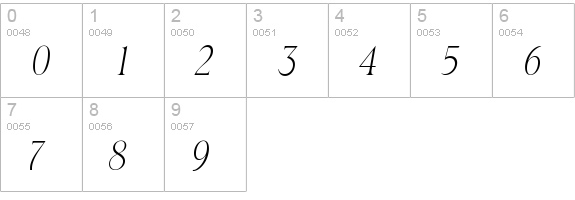
Toledo-XlightIta font is an elegant and sophisticated typeface that exudes a sense of modernity and grace. With its slender and delicate letterforms, it adds a touch of sophistication to any design project. The Toledo-XlightIta font is perfect for creating captivating headlines, stylish logos, and refined branding materials. This font features a unique blend of thin strokes and sharp angles, creating a harmonious balance between elegance and contemporary aesthetics. Its sleek and refined design makes it suitable for various design applications, from editorial layouts to website designs. One of the best things about the Toledo-XlightIta font is that it is available for free. You can easily download this font at FontsMarket.com, a trusted platform for high-quality fonts. By offering this font freely, the creators of Toledo-XlightIta have made it accessible to a wide range of designers and individuals who are looking to elevate their projects without breaking the bank. So whether you're working on a personal project or a professional assignment, Toledo-XlightIta font is the perfect choice to add a touch of elegance and sophistication. Download this font today from FontsMarket.com and unleash your creativity with this stunning typeface.